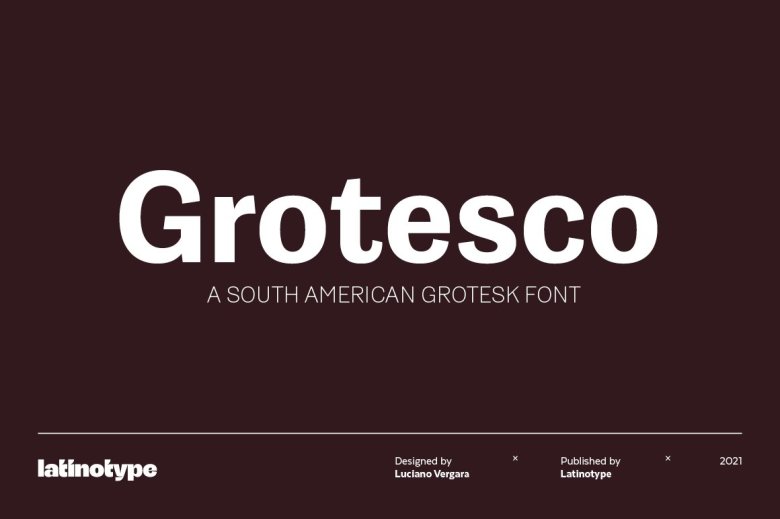
Grotesco Font
Grotesco font is an updated Grotesque sans-serif featuring geometrical characters designed by Latinotype and shared freely. This South American Grotesk font combines the functionality of an American Grotesk with the distinctive Latino flair and rhythm that characterizes Latin American cultures and rhythm. While Grotesco may look intimidating at first, its two alternate sets will allow you to add flair and pizzazz into advertising, logos, or brand identities.
Grotesco Sans Serif Font Family